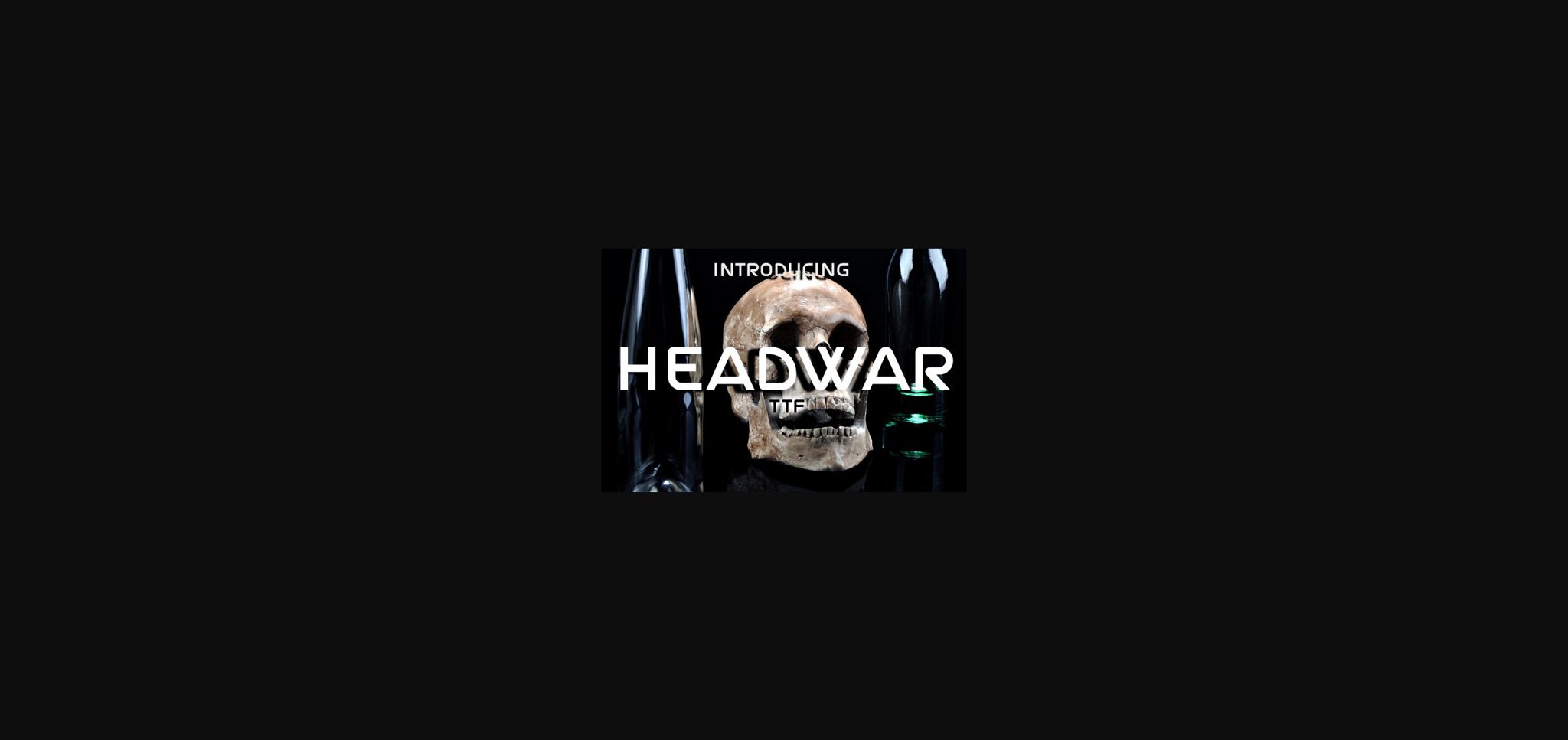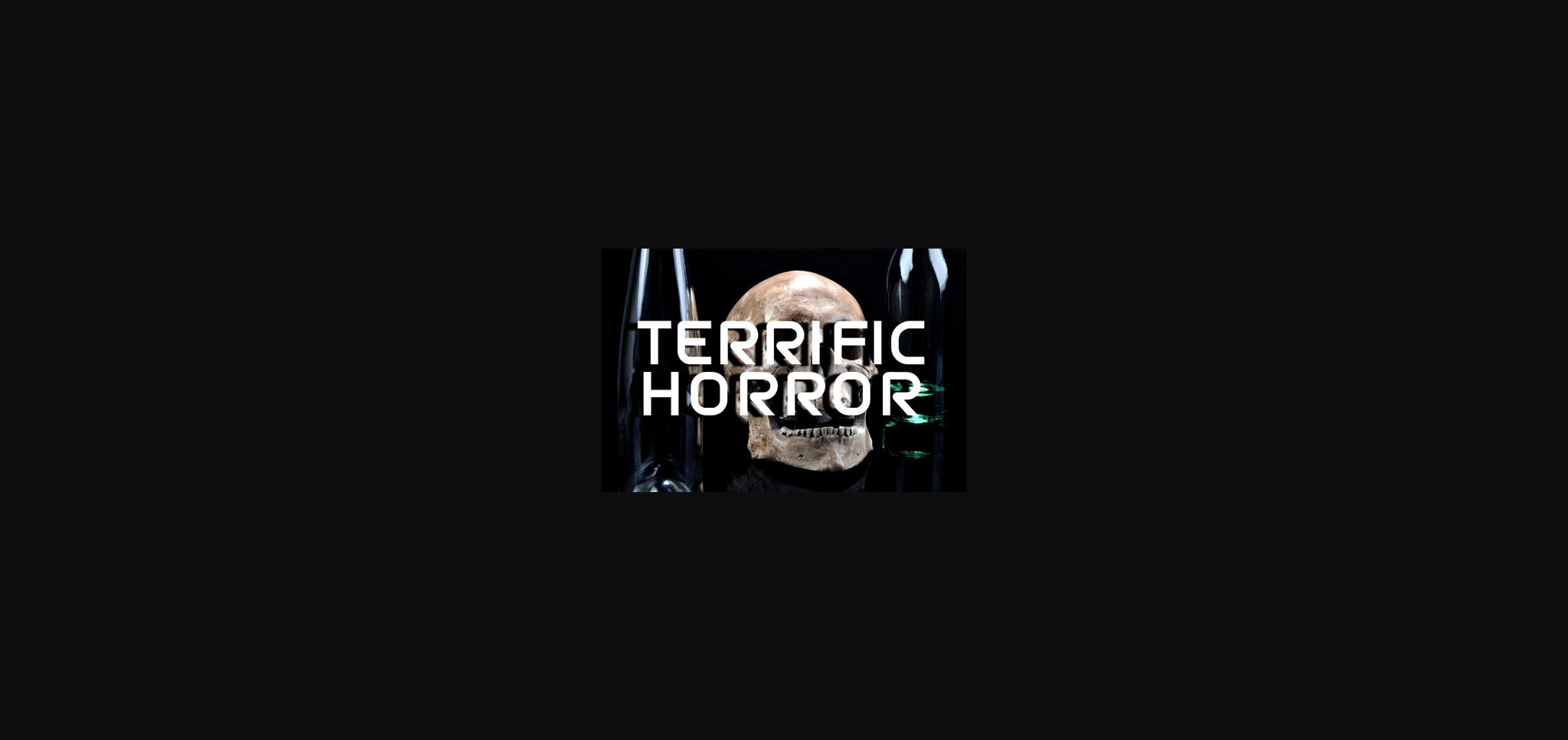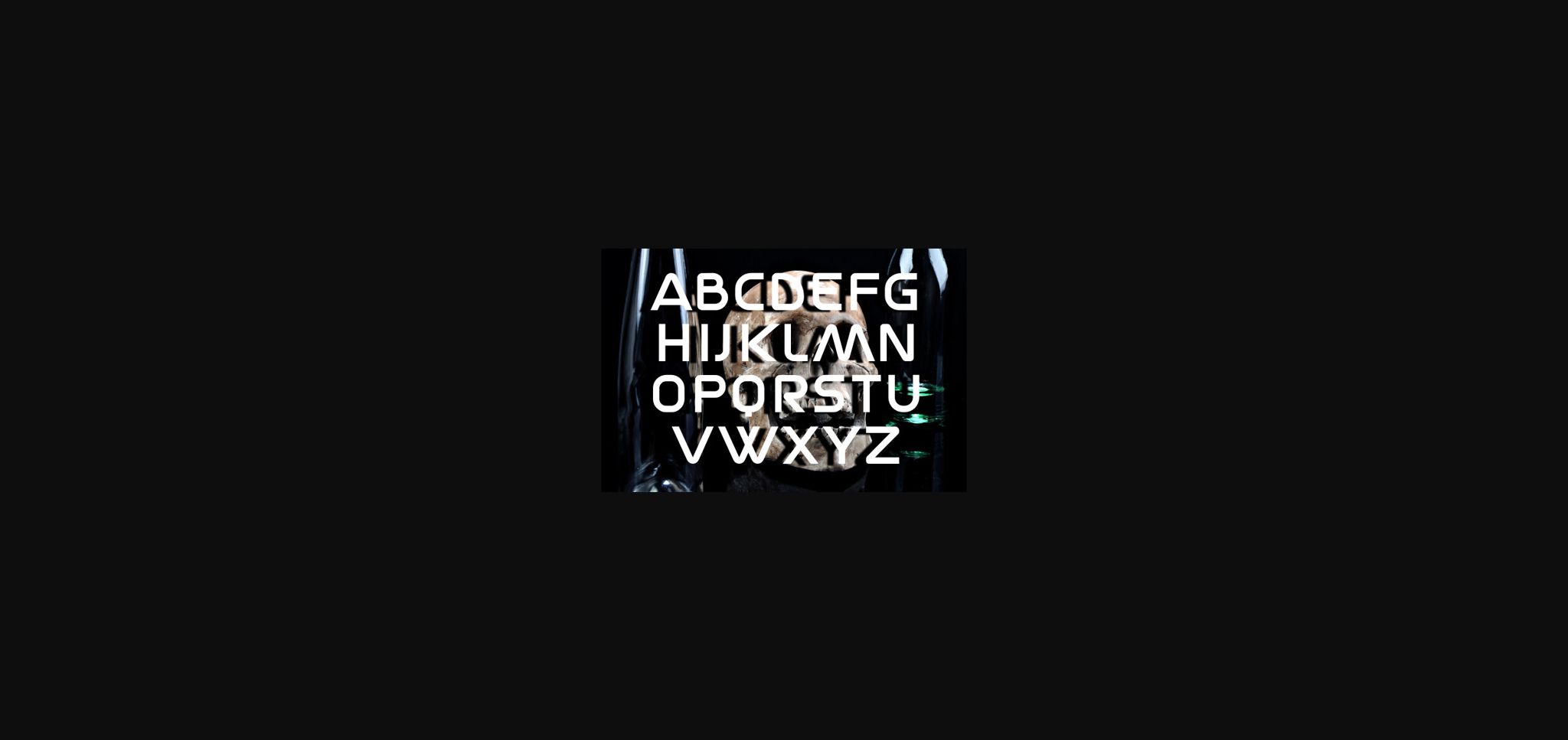
HomeSans Serif FontsHeadwar Font Sans Serif Fonts Headwar Font FacebookXPinterestWhatsApp 1 of 5 ... Headwar Font Poster 2... Headwar Font Poster 3... Headwar Font Poster 4... Headwar Font Poster 5... About Headwar Font Headwar is stylish Sans font that will make Your designs look fresh. Use this font on posters, flyers, and t-shirts. DOWNLOAD NOW People also explored Blondes Font Feeling Font Sabyan South Sea Font Brick Font Emelind Font Caty Keeps Score Font Rollcores Font Sinawane Font 297 0 TagsHeadwarHeadwar Font Previous articleArcane FontNext articleSimple Monoline Font LEAVE A REPLY Cancel reply Comment: Please enter your comment! Name:* Please enter your name here Email:* You have entered an incorrect email address! Please enter your email address here Website: Save my name, email, and website in this browser for the next time I comment. Personal Use Free Good Luck Personal Use Free Read more about this font Charletto Personal Use Free Read more about this font Knox Personal Use Free Read more about this font Valentines Day Personal Use Free Read more about this font BLOG 5 Fonts That Will Dominate Design Trends in 2026 5 Fonts for 2026 That Will Dominate Design Trends Typography plays a critical role in visual communication, and as we look ahead to 2026, it’s... Modern Sans-Serif Fonts That Brands Love in 2025 Top 7 Google Fonts Alternatives for Faster and Privacy-Friendly Web Design (2025) Using Fonts in Digital Marketing: Tips to Strengthen Your Brand Identity